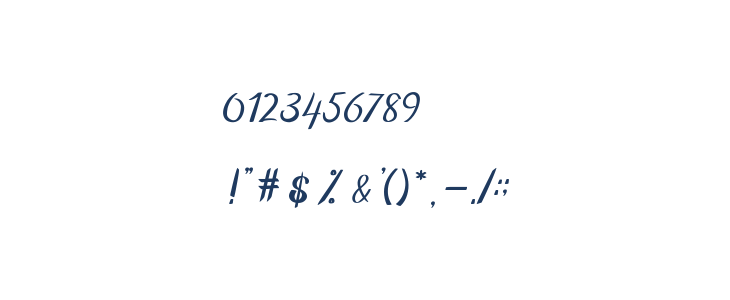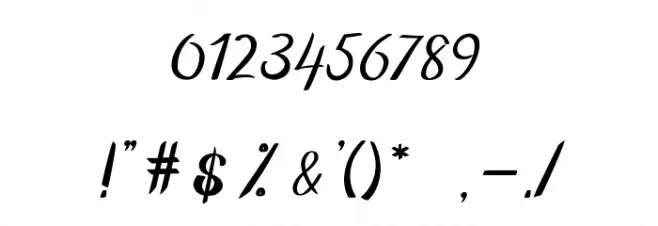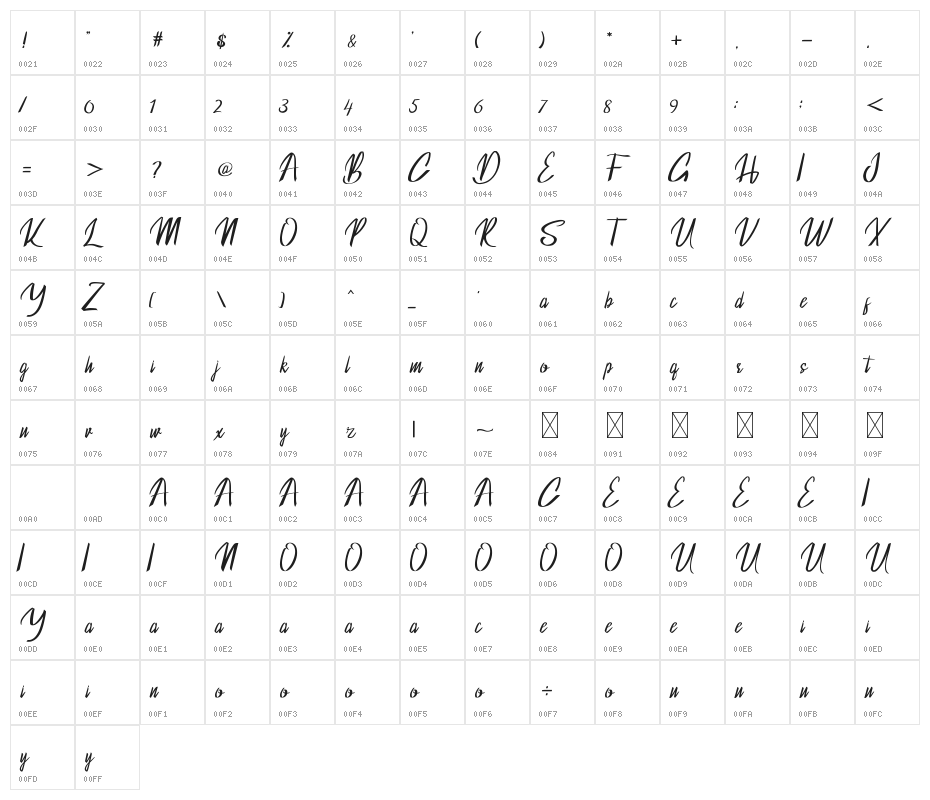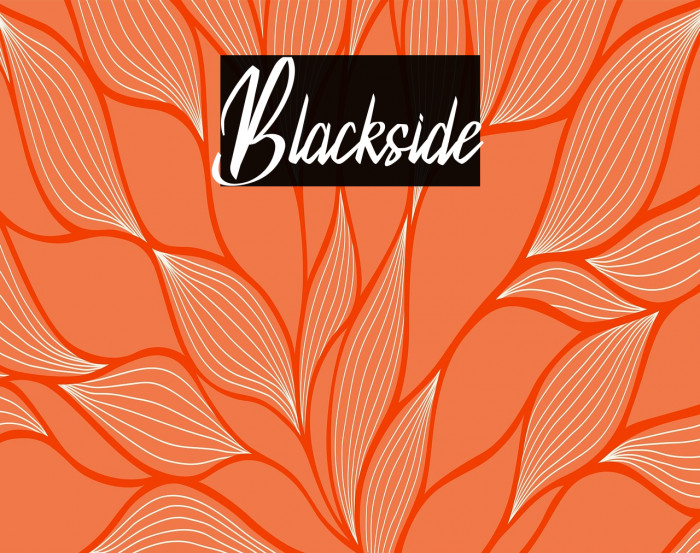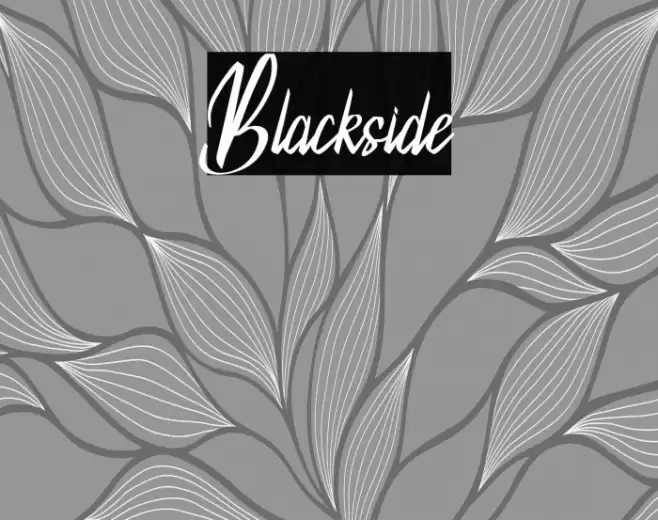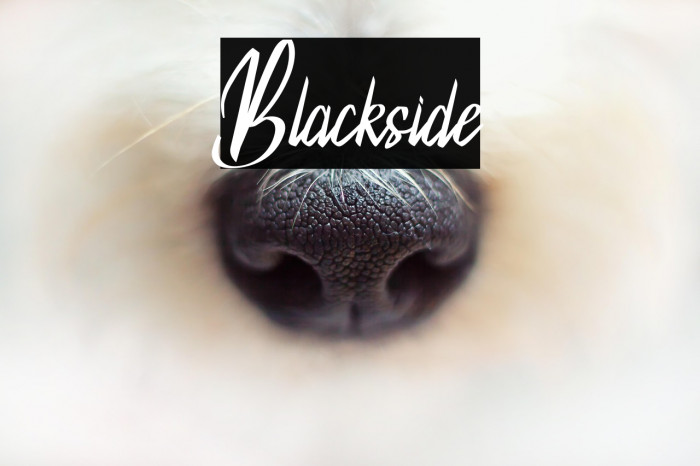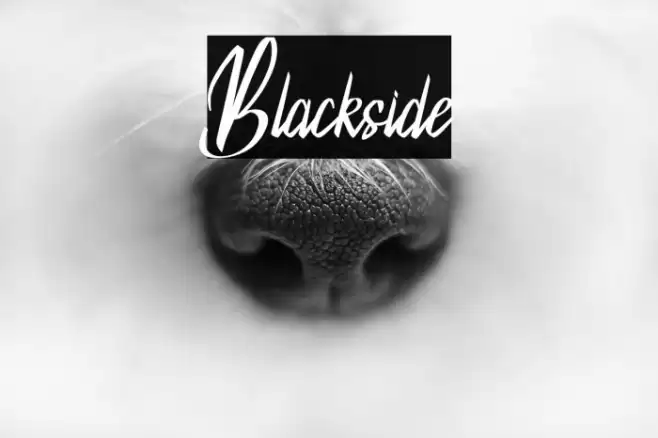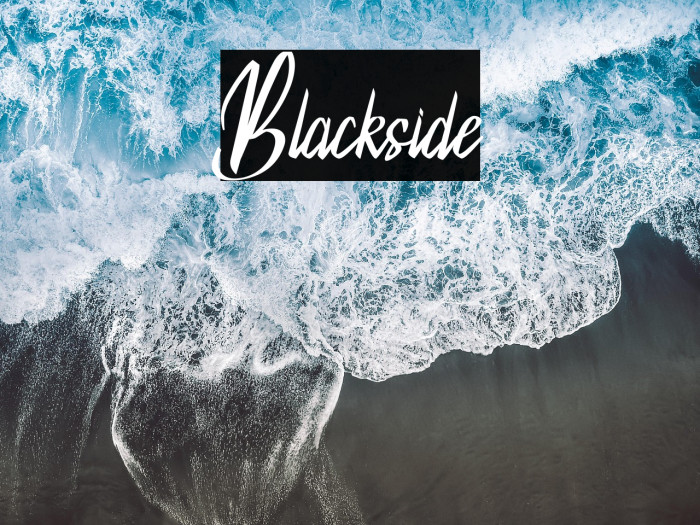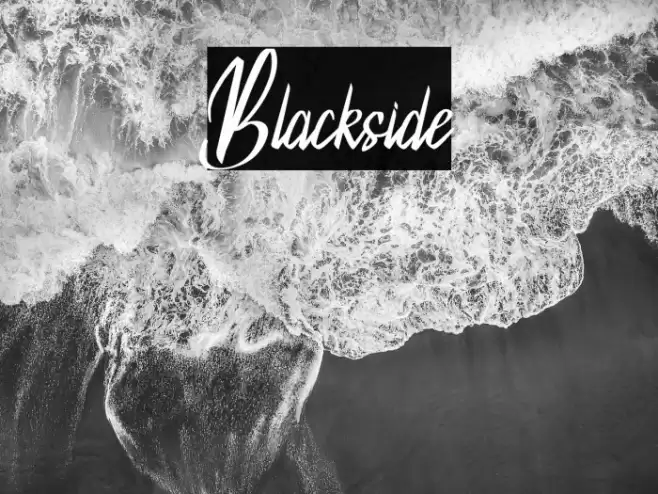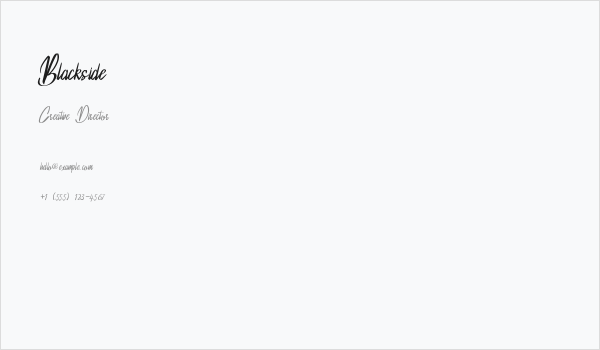
Blackside Font
Blackside Description
This font features a dynamic and expressive script style, characterized by its fluid and elegant strokes. The uppercase letters exhibit a bold and sweeping design, while the lowercase letters maintain a consistent flow with a slightly more restrained appearance. The numerals are designed to complement the overall style, maintaining the same fluidity and elegance. Special characters are integrated seamlessly, enhancing the font's versatility. The overall impression is one of sophistication and flair, making it suitable for projects that require a touch of elegance and personality.
| Proposed Projects | Ideal for wedding invitations, branding, logo design, and elegant packaging. |